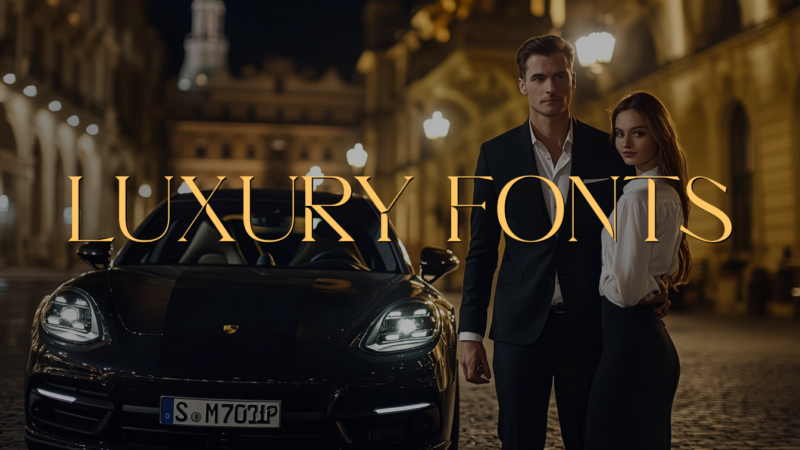
When you’re tasked with designing for luxury brands, choosing the right font can make the difference between a design that whispers “premium” and one that truly screams “exclusive.” As a graphic designer who’s worked with numerous high-end brands, I’ve seen firsthand how the perfect luxury font can elevate a simple logo or packaging design into something truly extraordinary.
In this comprehensive guide, we’ll explore the most sophisticated luxury fonts that are making waves in the luxury design space this year. From timeless serifs to modern minimalist options, these fonts are perfect for high-end fashion, premium beauty brands, exclusive real estate, and any design project that needs that touch of elegance.
The Most Elegant Luxury Fonts
Gamgote
Gamgote is a luxurious serif font that combines classic elegance with modern design elements. Its refined letterforms and subtle details make it perfect for high-end branding and editorial projects.
Luxury Font
This sophisticated serif typeface exudes opulence and refinement. With its graceful curves and balanced proportions, Luxury Font is ideal for upscale marketing materials and premium product packaging.
Calya
Calya is a modern luxury serif font that strikes a perfect balance between contemporary design and timeless elegance. Its clean lines and subtle flourishes make it versatile for both digital and print applications.
Castlegar Luxury Script
Castlegar Luxury Script is a stunning handwritten font that oozes class and modernity. Its fluid strokes and decorative elements make it perfect for creating eye-catching logos and invitations.
Luxury Modish
Luxury Modish is a stylish script font that combines handwritten charm with a touch of elegance. Its natural flow and subtle variations make it ideal for creating personalized, high-end designs.
Storytelling – Luxury Calligraphy
This luxurious calligraphy font brings a touch of elegance to any design. With its flowing curves and graceful strokes, Storytelling is perfect for creating romantic and sophisticated compositions.
Prima – Luxury Typeface
Prima is a versatile luxury typeface that combines grunge elements with classic serif styling. Its unique character makes it suitable for a wide range of design projects, from vintage-inspired to contemporary layouts.
Regasto|Luxury Serif
Regasto is a modern luxury serif font that exudes sophistication and refinement. Its clean lines and well-balanced letterforms make it perfect for high-end branding and editorial design.
Compania – Luxury Signature
Compania is an elegant luxury signature font that brings a personal touch to designs. Its fluid strokes and natural flow make it ideal for creating authentic-looking signatures and handwritten elements.
Ariens Nobela – Luxury Font
Ariens Nobela is a sophisticated luxury serif font with distinctive punctuation marks. Its refined letterforms and attention to detail make it perfect for high-end branding and editorial projects.
Progesteron Luxury Serif Font
Progesteron is a luxurious serif font that combines script-like elements with Roman letterforms. Its unique blend of styles makes it versatile for both traditional and contemporary design projects.
Glamoury – Luxury Script
Glamoury is a classic luxury script font that exudes elegance and sophistication. Its flowing curves and delicate strokes make it perfect for creating stunning logos, invitations, and packaging designs.
Elizabeth – Luxury Serif Font
Elizabeth is a modern luxury serif font with a touch of sans-serif influence. Its clean lines and subtle details make it versatile for both traditional and contemporary design applications.
The Luxury – Elegant Font
The Luxury is an elegant decorative font that combines handwritten charm with script-like flourishes. Its graceful curves and delicate details make it ideal for creating luxurious and sophisticated designs.
Cheqa a Luxury & Elegant Serif
Cheqa is a modern and elegant luxury serif font with a unique design. Its carefully crafted letterforms and balanced proportions make it perfect for high-end branding and editorial projects.
Rossten – Luxury Serif Display
Rossten is a luxurious serif display font that commands attention. Its bold letterforms and distinctive character make it ideal for creating impactful headlines and logotypes.
Balqur – Luxury serif font
Balqur is a modern luxury serif font with Roman influences. Its refined letterforms and subtle details make it perfect for creating sophisticated and timeless designs across various media.
Whether you’re designing for a traditional luxury brand or creating something entirely new, remember that true luxury in typography isn’t just about choosing an expensive font – it’s about selecting and using typefaces that perfectly balance sophistication, functionality, and brand authenticity.
The right luxury font can transform an ordinary design into something extraordinary. By understanding the principles behind luxury typography and carefully considering your specific needs, you can create designs that not only look premium but truly embody the essence of luxury.